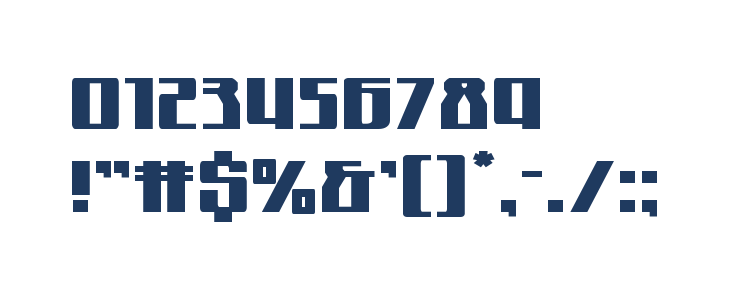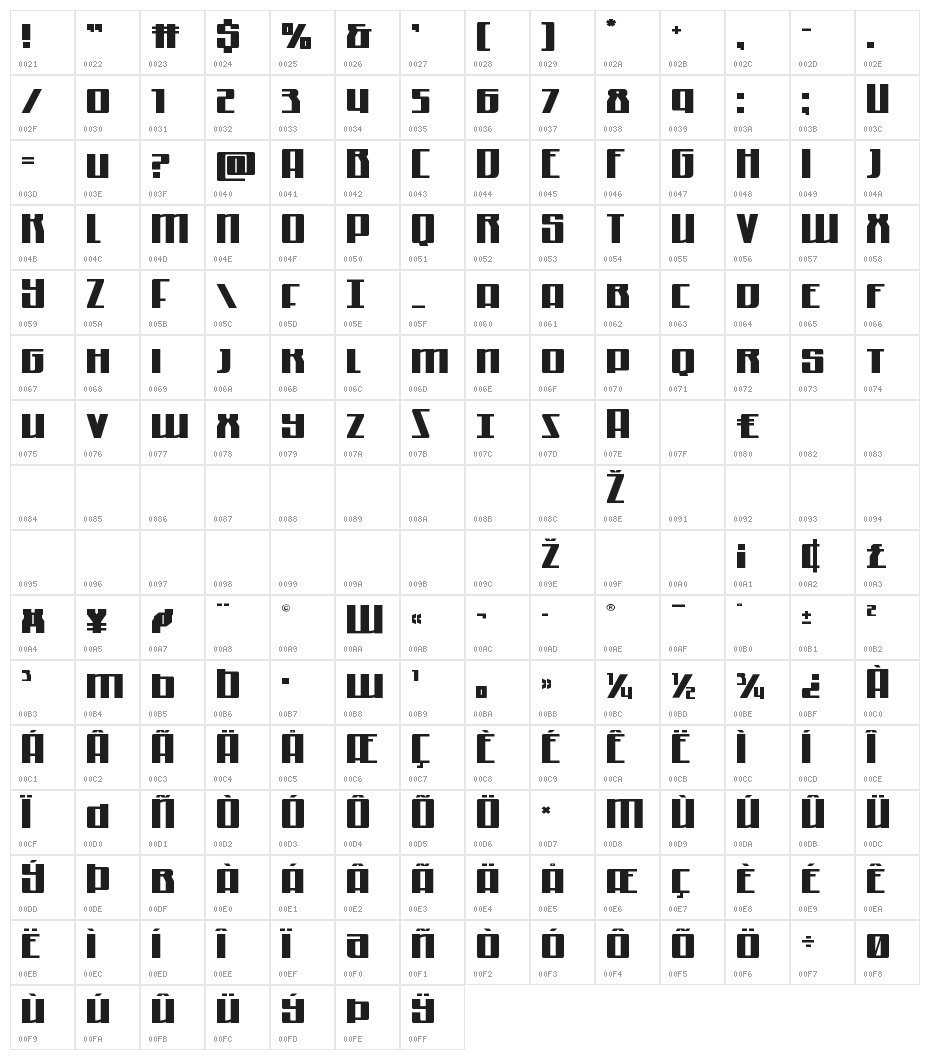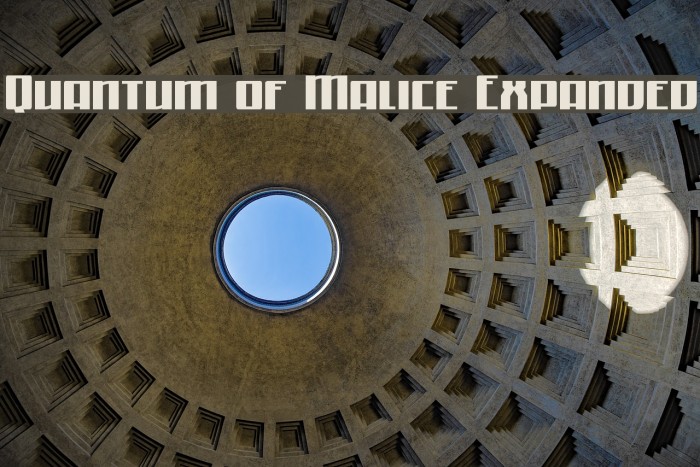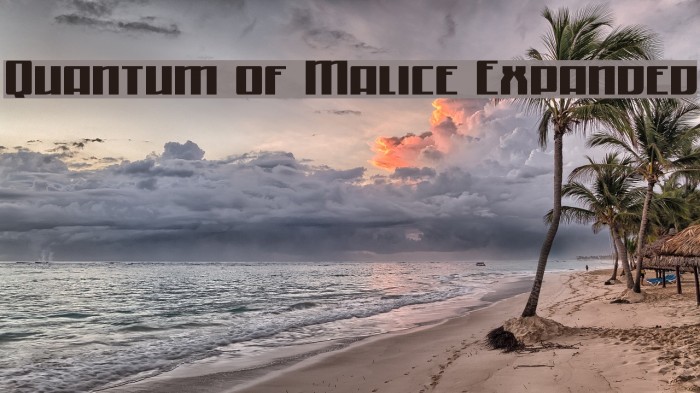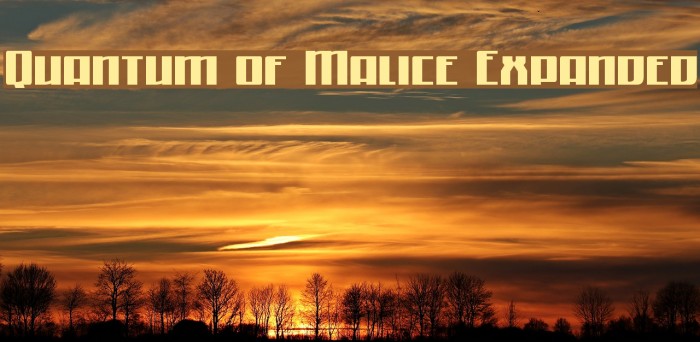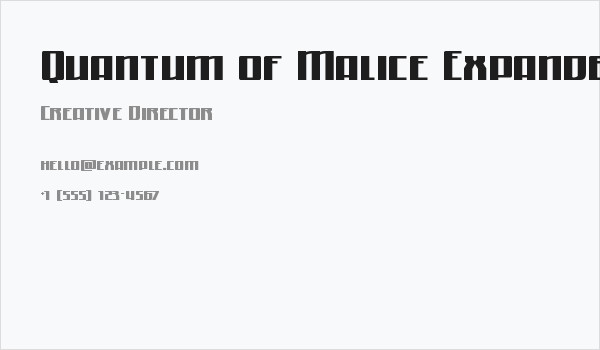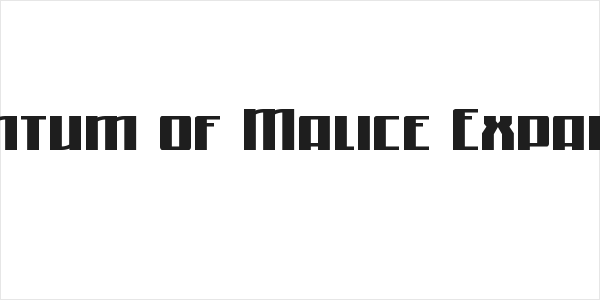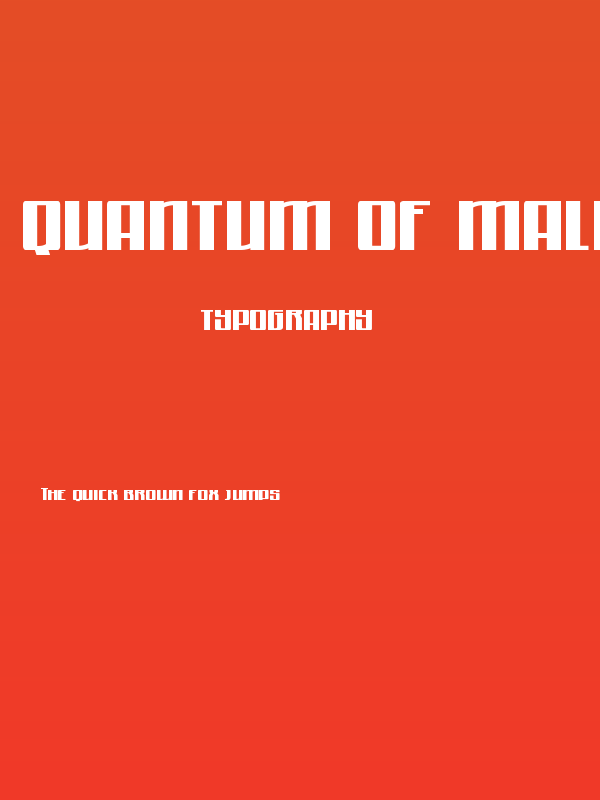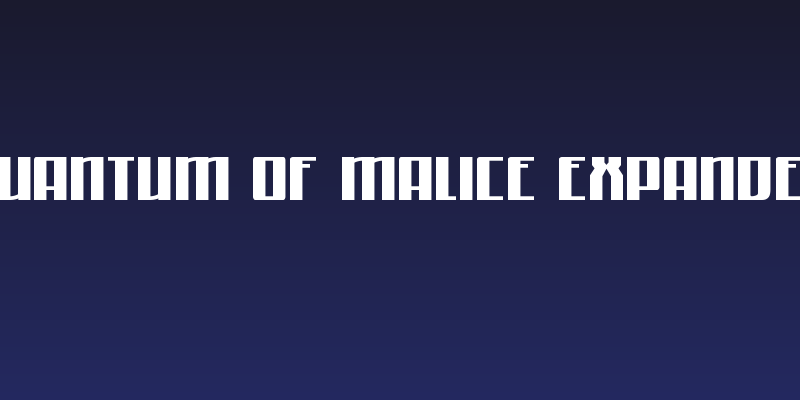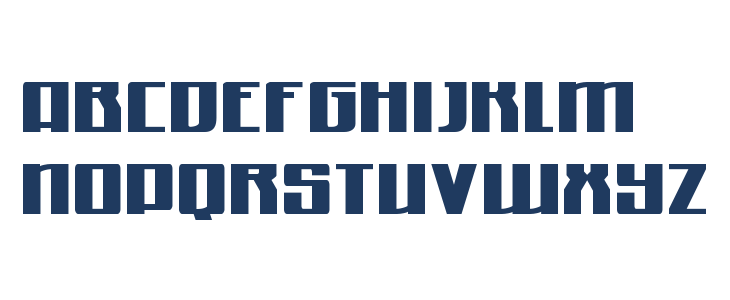
Quantum of Malice Expanded Font
Quantum of Malice Expanded Description
This font features a bold and striking design with a distinctly modern and futuristic aesthetic. The characters are blocky and geometric, with sharp angles and a strong presence. The uppercase letters are uniform in height, creating a cohesive and structured look. The lowercase letters maintain the boldness, with some characters exhibiting unique cuts and angles that add to the font's dynamic appearance. Numbers are equally bold and consistent with the overall style, ensuring readability and impact. Special characters are designed to match the font's bold and angular theme, making them stand out effectively. This font is ideal for projects that require a strong visual impact and a modern, edgy feel.